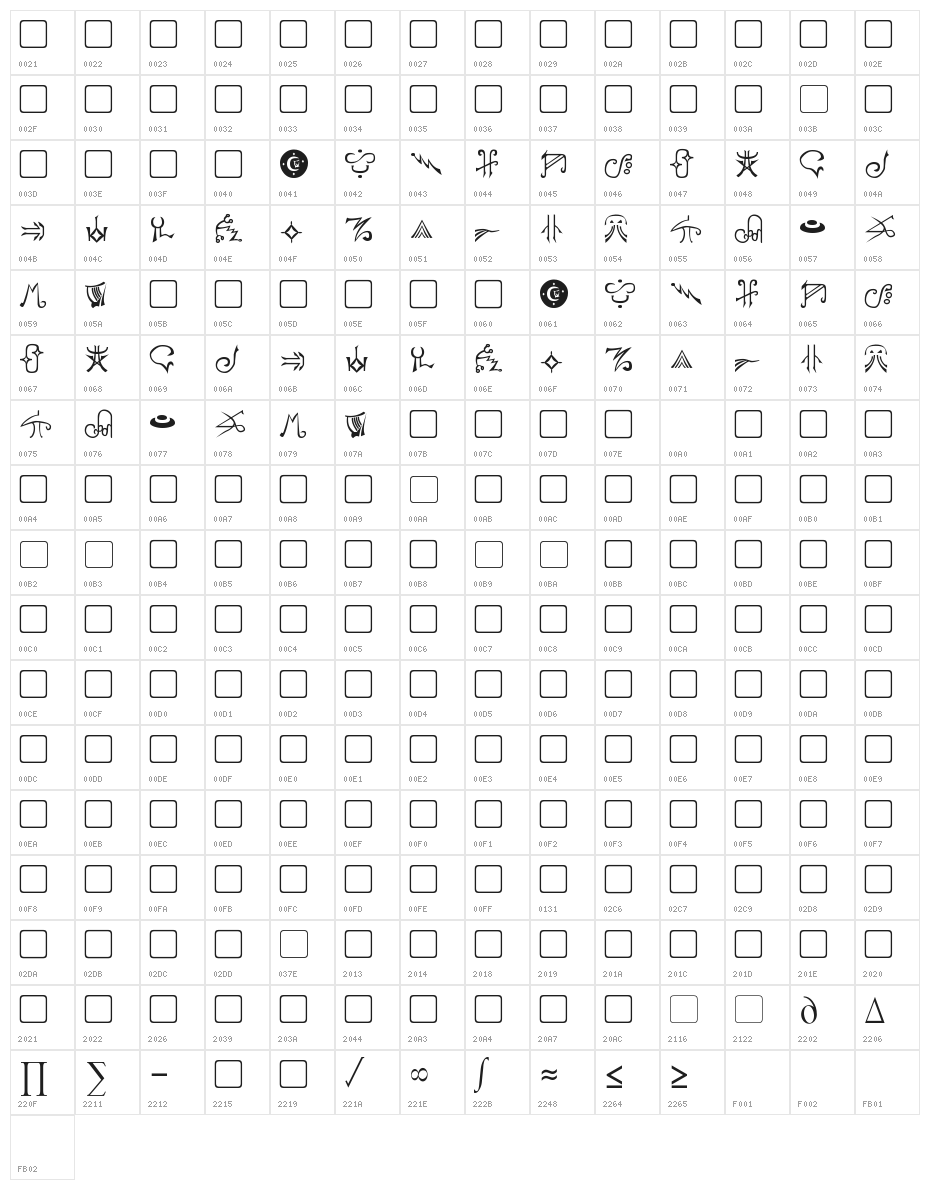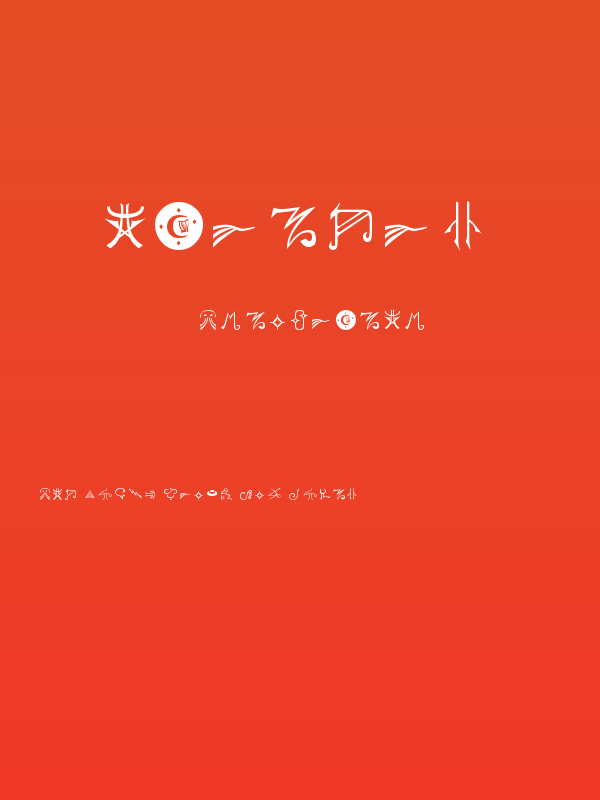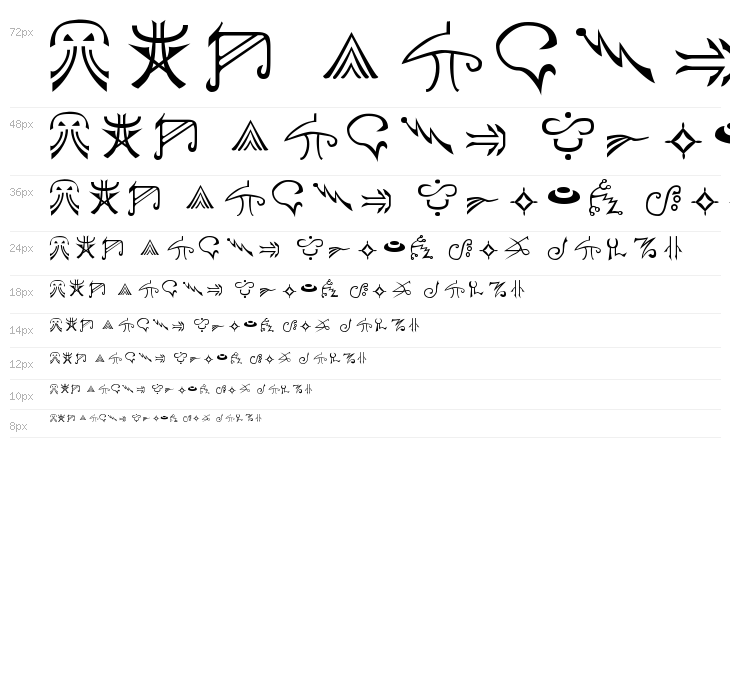
Harpers Font
Harpers Description
This font features an intricate and decorative style, characterized by its unique and artistic symbols that resemble a blend of ancient scripts and mystical iconography. Each character is crafted with elaborate curves and flourishes, giving it a whimsical and enchanting appearance. The design elements suggest a fantasy or magical theme, making it stand out as a distinctive choice for creative projects. The font's ornate nature and complex shapes make it more suitable for decorative purposes rather than readability in large blocks of text.
| Use Case | Logos, Titles, Decorative elements |
| Proposed Projects | Ideal for fantasy-themed projects, game design, book covers, or any creative work requiring a magical or mystical aesthetic. |